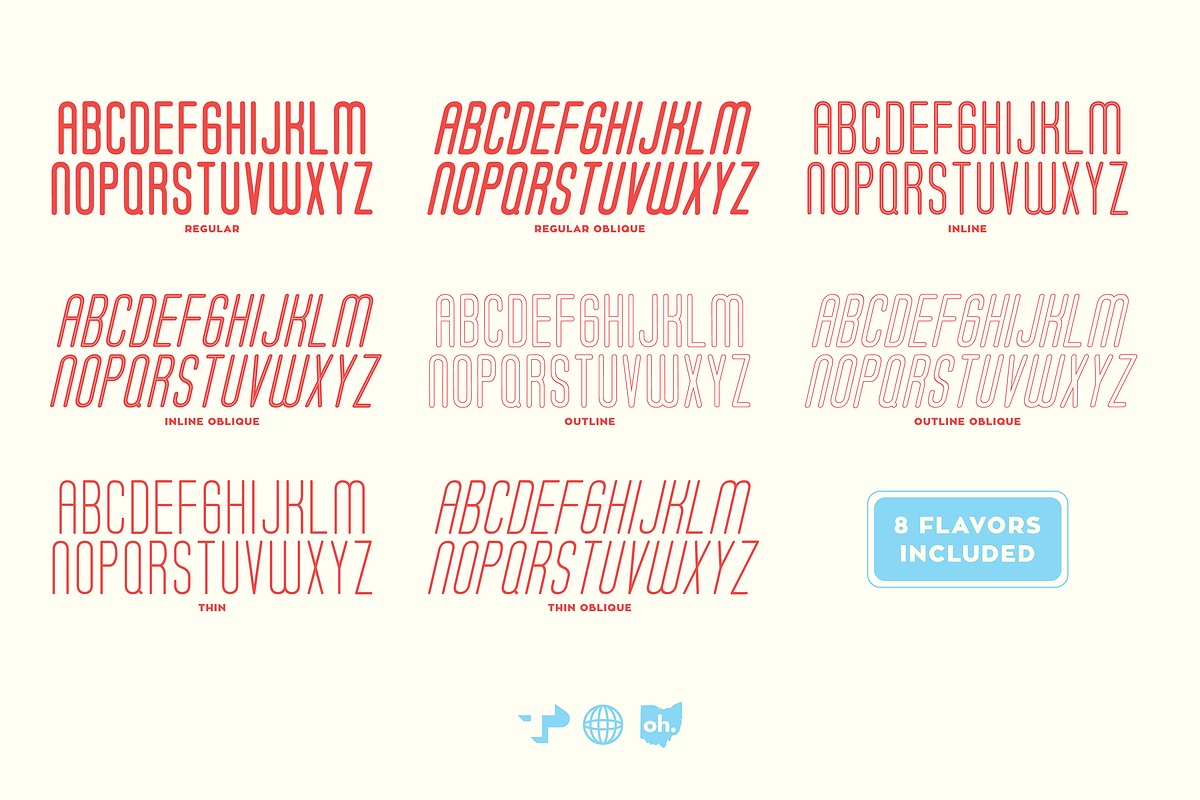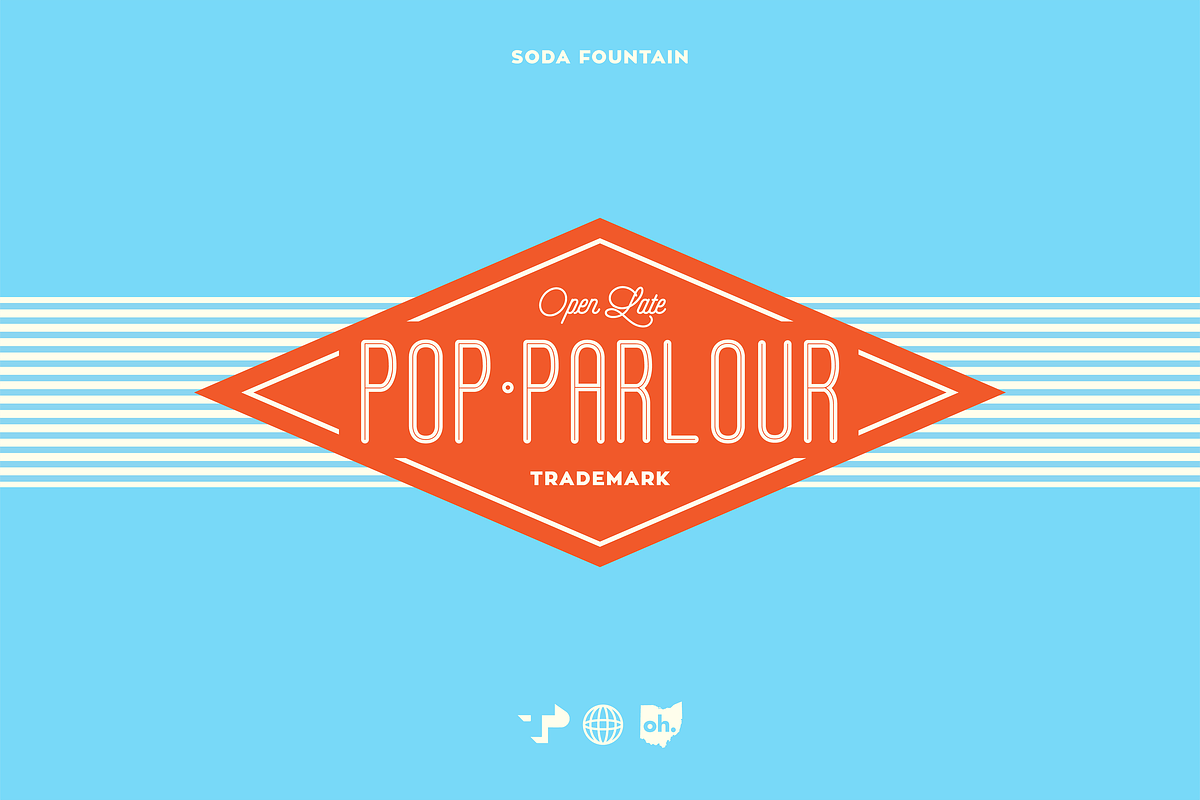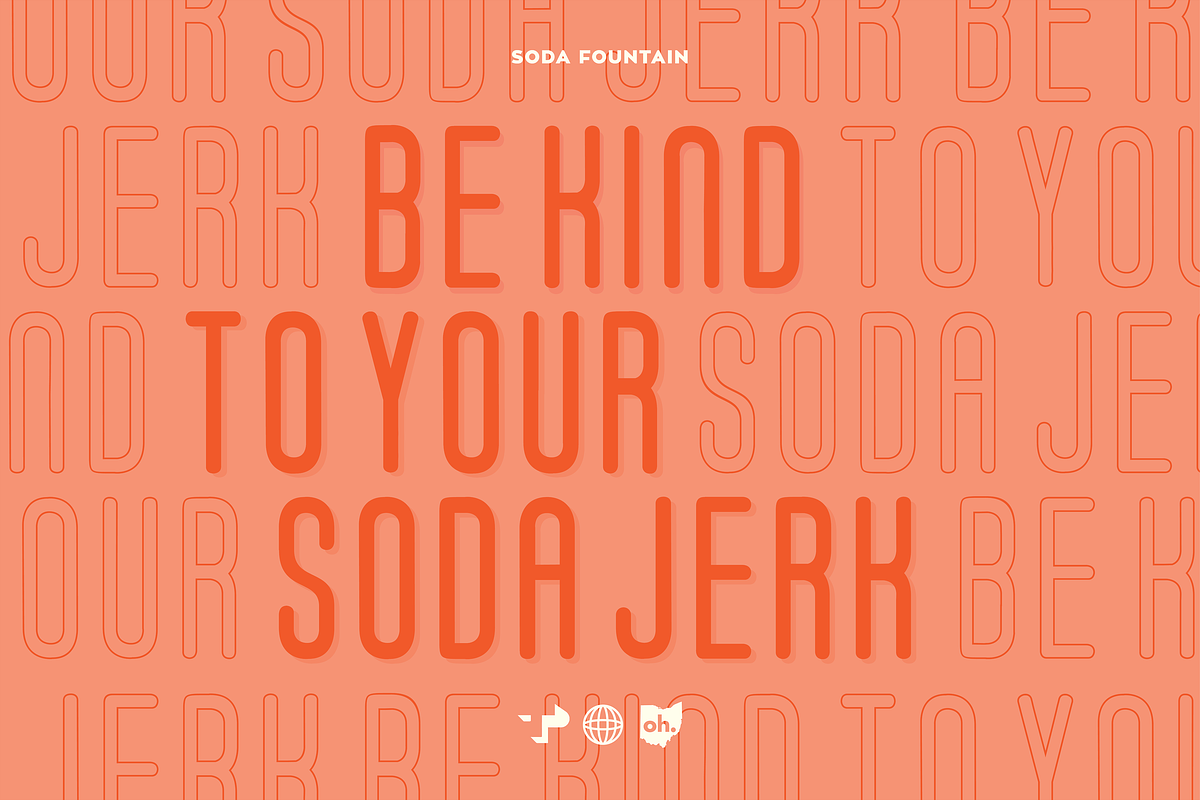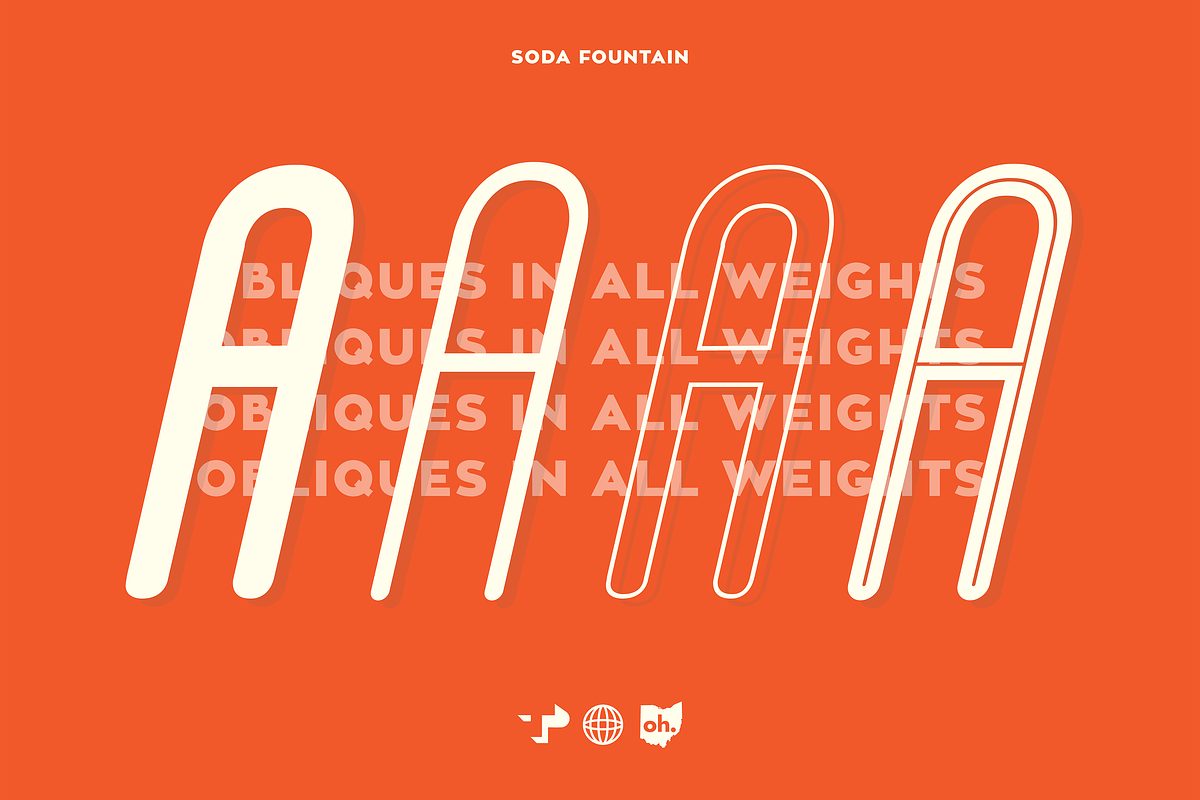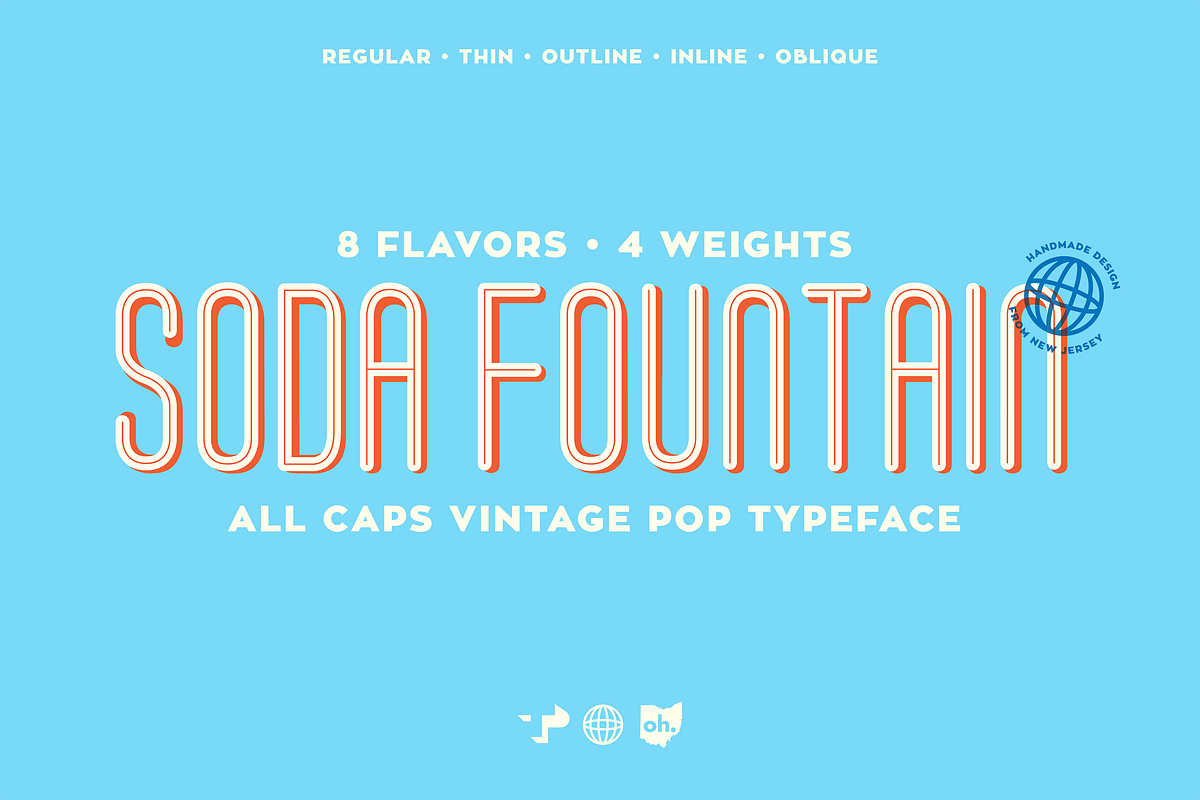
Soda Fountain Typeface
Soda Fountain Typeface by tanner puzio. is a font selected for branding, posters, packaging, typography.
- This typeface contains eight fizzing flavors: Regular, Oblique, Outline Oblique, Inline Oblique, Thin, & Thin Oblique.
Soda Fountain Typeface by tanner puzio. fits naturally into Branding, posters, packaging, typography.